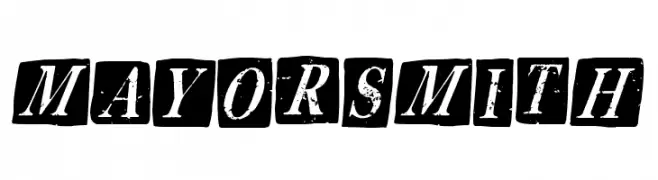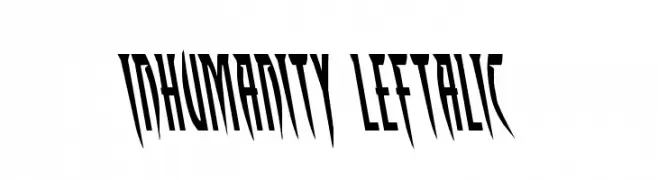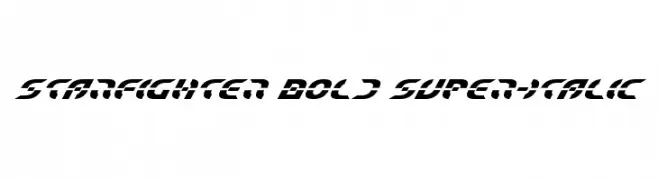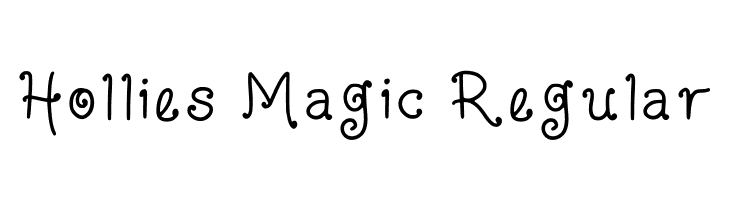
A modern, geometric font with sleek lines and circular elements.
A playful, hand-drawn font with a cartoonish, nostalgic style.
A whimsical, hand-drawn font with artistic, elongated characters.
A bold, distressed font with a vintage, stamped appearance.
Elegant cursive script with a handwritten look.
A bold, angular font with a leftward slant and sharp serifs, perfect for dramatic headlines.
A playful and whimsical font with decorative curls and loops.
A bold serif font with a classic and authoritative style.
A playful, handwritten font with bold, rounded strokes and a casual, informal style.
A bold, italicized font with a futuristic and dynamic style.